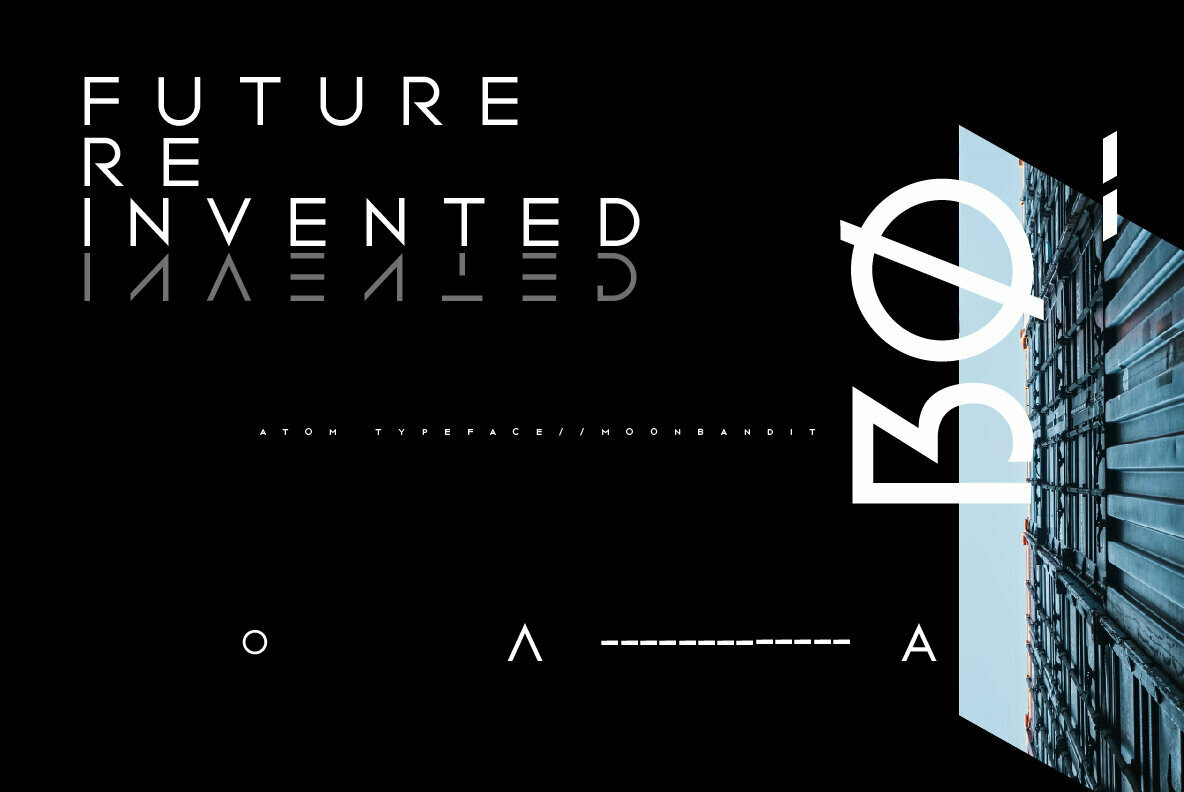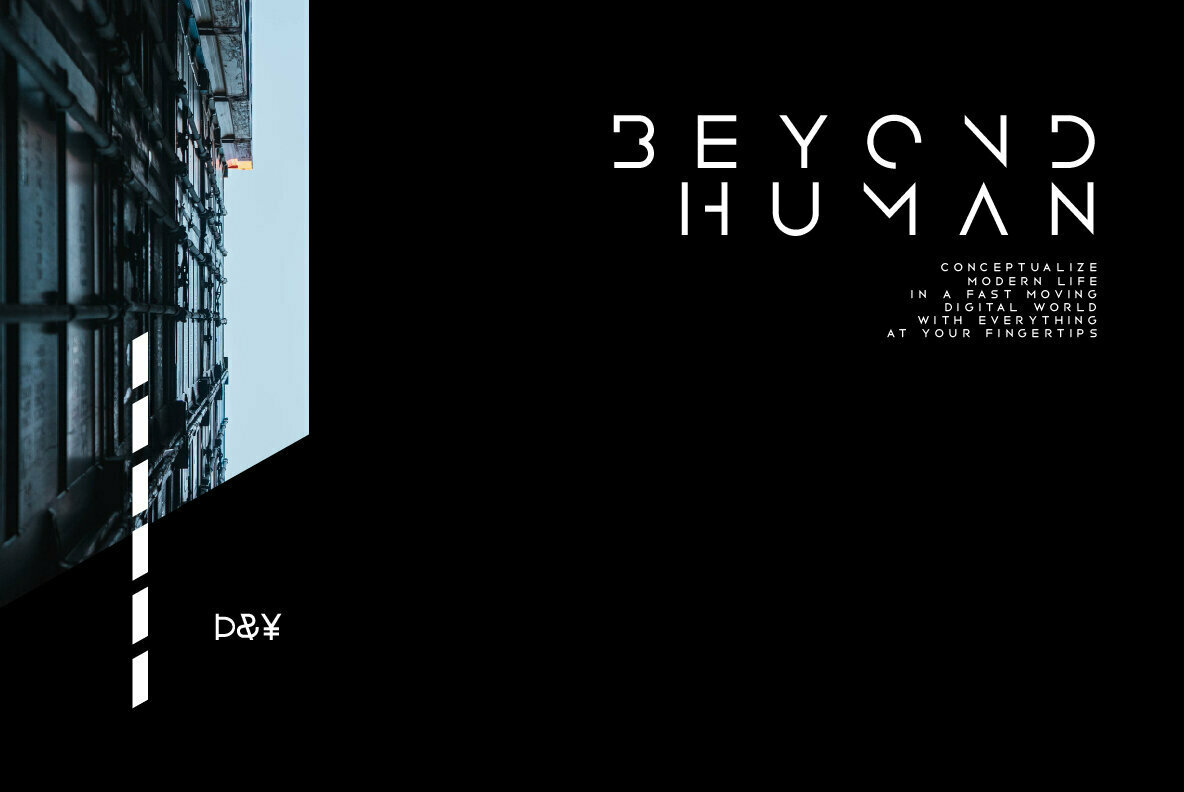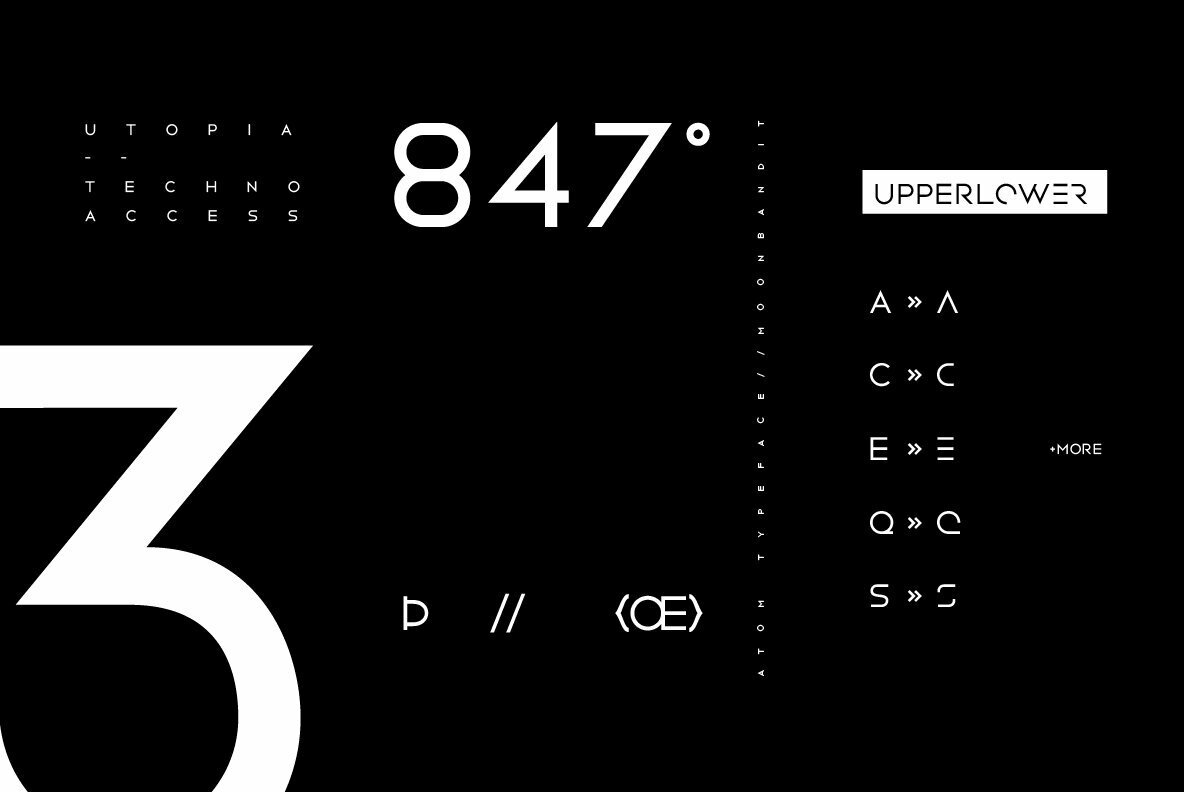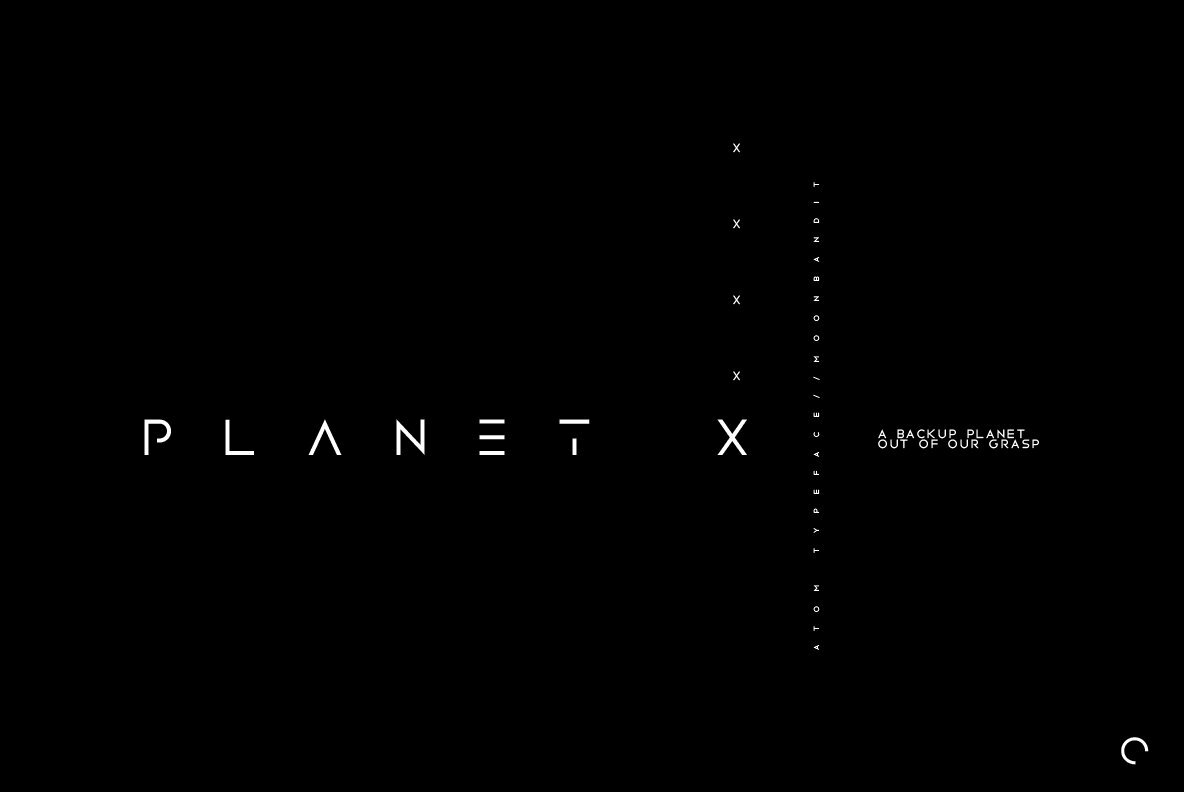
MBF Atom Font
MBF Atom
MBF Atom stands at the forefront of modern typography with its all-caps futuristic design. This sans serif font boasts thin geometric lines and sharp edges that create a striking presence, making it an ideal choice for displays, logotypes, and headlines. Designed for versatility, MBF Atom allows effortless customization. Users can simply adjust the lowercase to explore alternative glyphs, enhancing the font's adaptability for diverse design needs.MBF Atom: A Futuristic Sans Serif with Geometric Precision